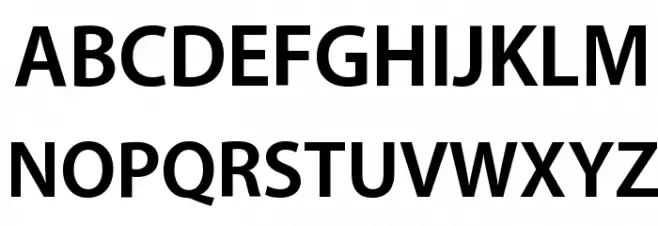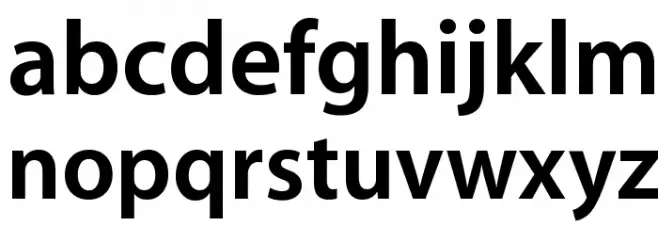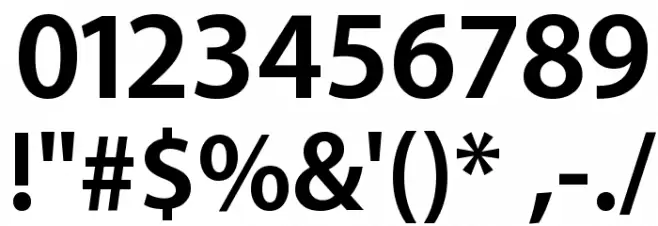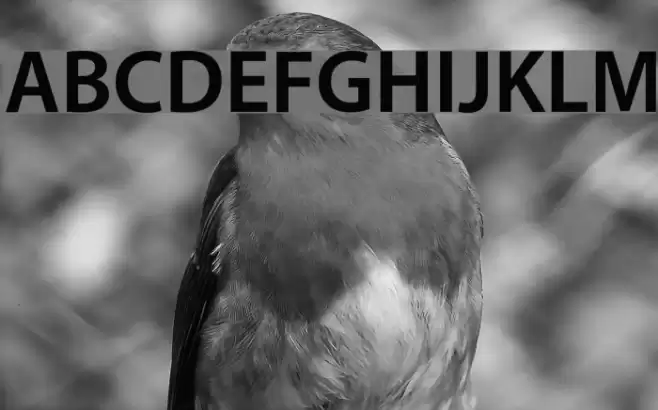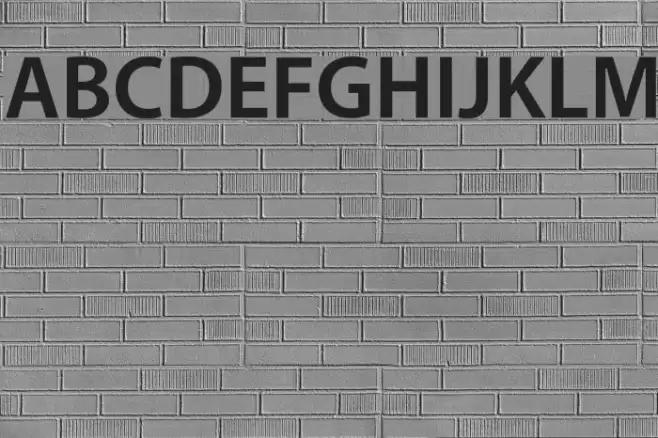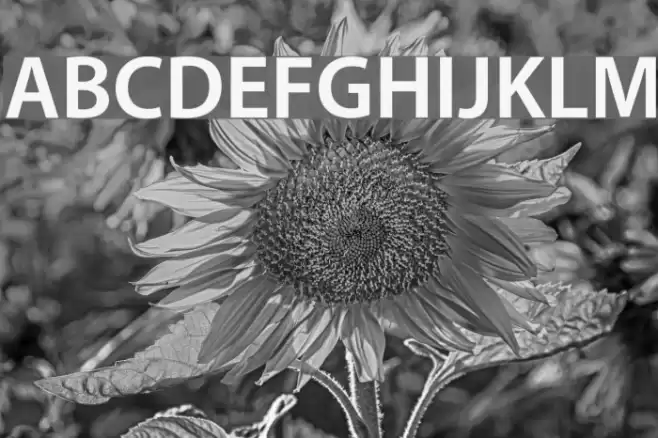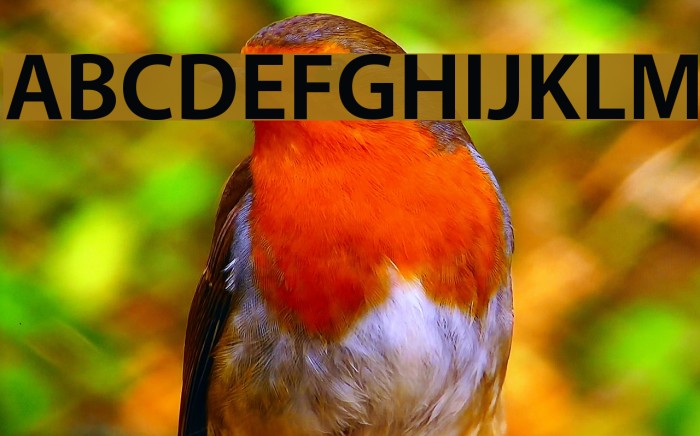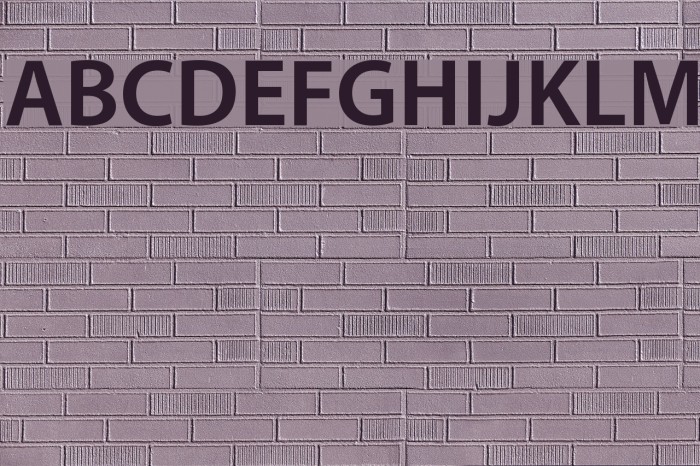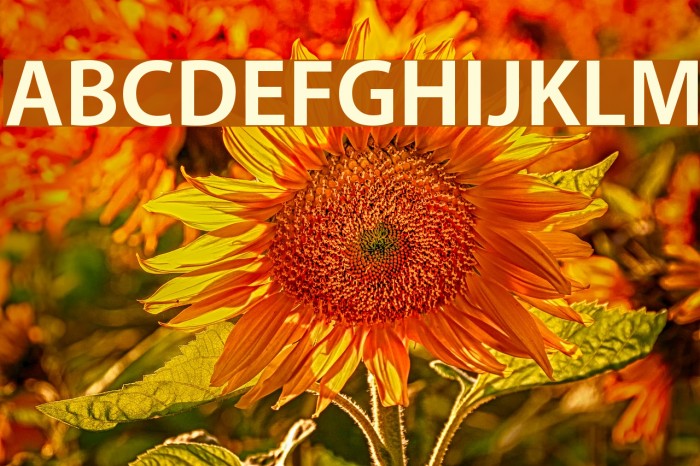
Myriad Apple Bold
This font exhibits a clean and modern sans-serif style with a bold weight, making it highly legible and versatile for various design applications. The characters are well-proportioned with a consistent stroke width, contributing to its readability. The uppercase and lowercase letters maintain a harmonious balance, while the numerals and special characters are distinct and clear. The overall design is sleek and professional, suitable for both digital and print media.
A bold, modern sans-serif font with excellent readability.
- Proposed Projects: Ideal for branding, advertising, web design, and editorial layouts where clarity and impact are essential.